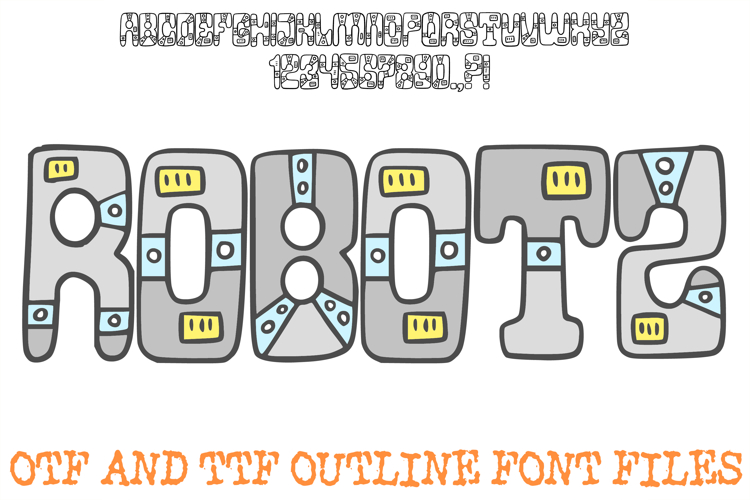
The Robotz Font is a dynamic, retro-futuristic display typeface inspired by mechanical sci-fi armor, classic cartoon robotics, and structural engineering panels. Each character is expertly styled like an interconnected machine block, packed with intricate mechanical details including rivet points, technical panel lines, armor segments, and tiny ventilation grilles. This high-tech, maker-themed layout makes it a premier choice for designers working on STEM learning kits, retro gaming streaming overlays, toy branding, tech camp flyers, and futuristic sci-fi merchandise.
The design masterfully balances complex mechanical textures with smooth, rounded outer corners, ensuring that the characters look friendly and approachable rather than harsh. Because the letters feature clean, open interior panels and rivet paths, you have complete creative freedom to color in individual armor segments to mimic metallic steel, vibrant plastic toy components, or neon cyberpunk highlights. Whether you are crafting a bold logo for an robotics club, writing a title for a graphic novel, or creating custom decals, this font brings an authentic, assembled machine aesthetic to your project.
Segmented Armor Plating: Finely drawn panel lines give each letter the appearance of a modular robot chassis or high-tech gadget plate.
Fully Customizable Colors: The open vector paths allow you to easily edit, change, and color in the individual technical segments and mechanical bolts to fit your brand guide.
Friendly Mechanical Weight: Chunky, heavy-duty silhouettes deliver maximum display presence while rounded outlines keep the style playful and accessible.
Intricate Tech Detailing: Built-in hardware accents like rivets, circular nodes, and vents add rich tactile texture and a genuine blueprint feel to headings.